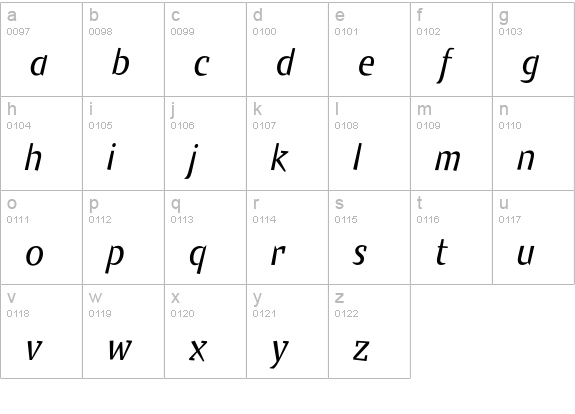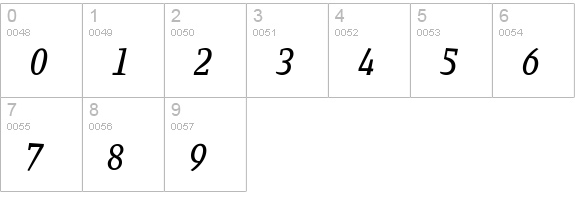
KeuleSemiSerifEF-RegularItalic Font Details
KeuleSemiSerifEF-RegularItalic font is a versatile and elegant typeface that adds a touch of sophistication to any design project. With its unique combination of semi-serif and italic styles, it strikes the perfect balance between classic and contemporary aesthetics. This font is ideal for a wide range of applications, from branding and advertising to editorial design and web content. Its clean and legible letterforms ensure readability in both small and large sizes, making it suitable for both print and digital media. The KeuleSemiSerifEF-RegularItalic font features subtle and graceful curves that add a sense of fluidity and movement to your typography. Its italicized slant adds a touch of elegance, making it perfect for conveying a sense of style and sophistication. Whether you're designing a logo, creating a magazine layout, or crafting a website, KeuleSemiSerifEF-RegularItalic font will effortlessly elevate your design to the next level. Its versatility allows it to adapt to various design themes, from modern and minimalistic to vintage and retro. What's even better is that KeuleSemiSerifEF-RegularItalic font is available for free download at FontsMarket.com. You can easily access and use this font in your projects without any cost, making it a valuable resource for designers, students, and anyone in need of a high-quality typeface. With its timeless elegance, versatility, and the convenience of being freely available, KeuleSemiSerifEF-RegularItalic font is a must-have addition to your font library. Embrace its beauty and let it breathe life into your designs, creating a lasting impression on your audience.